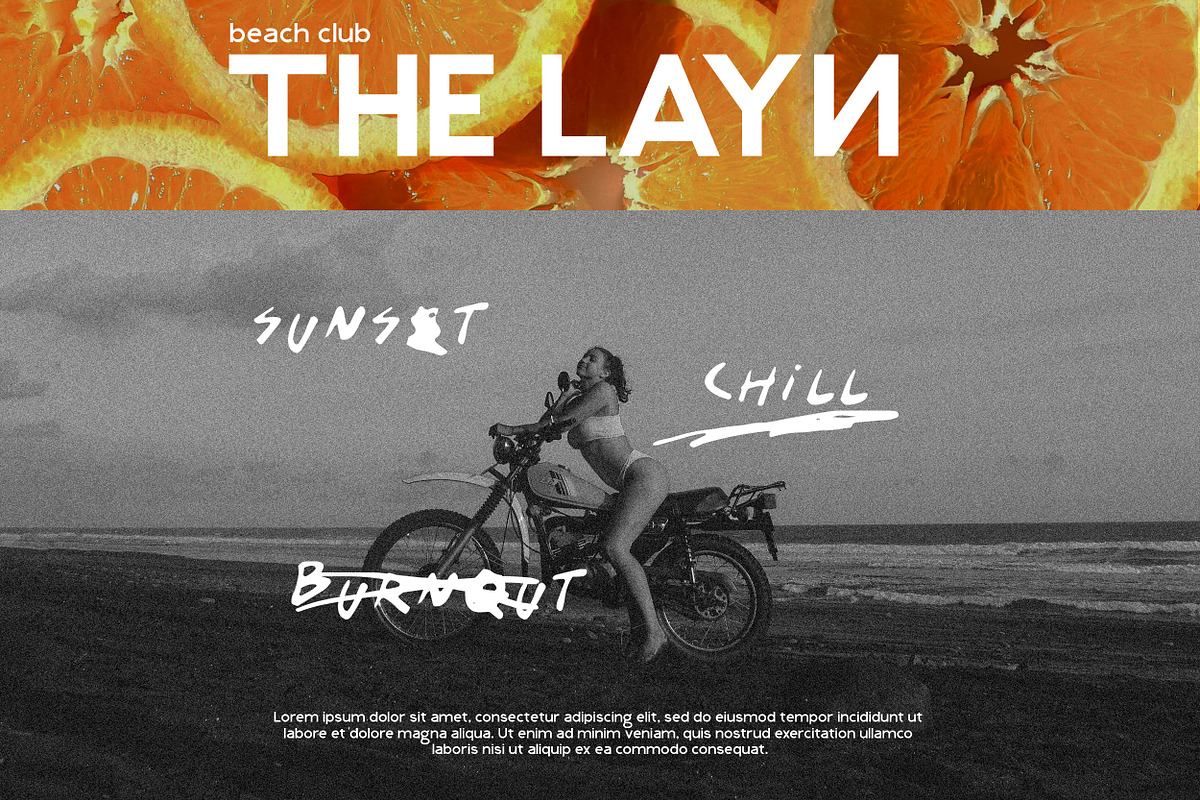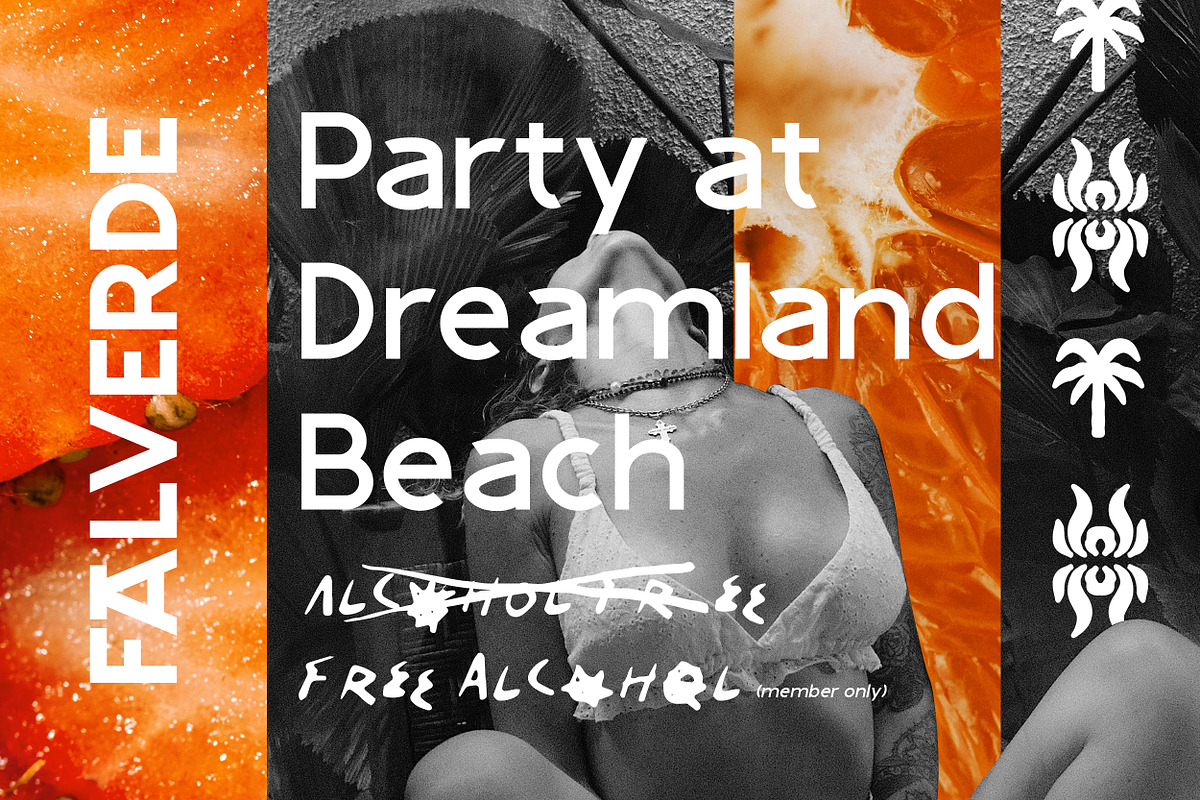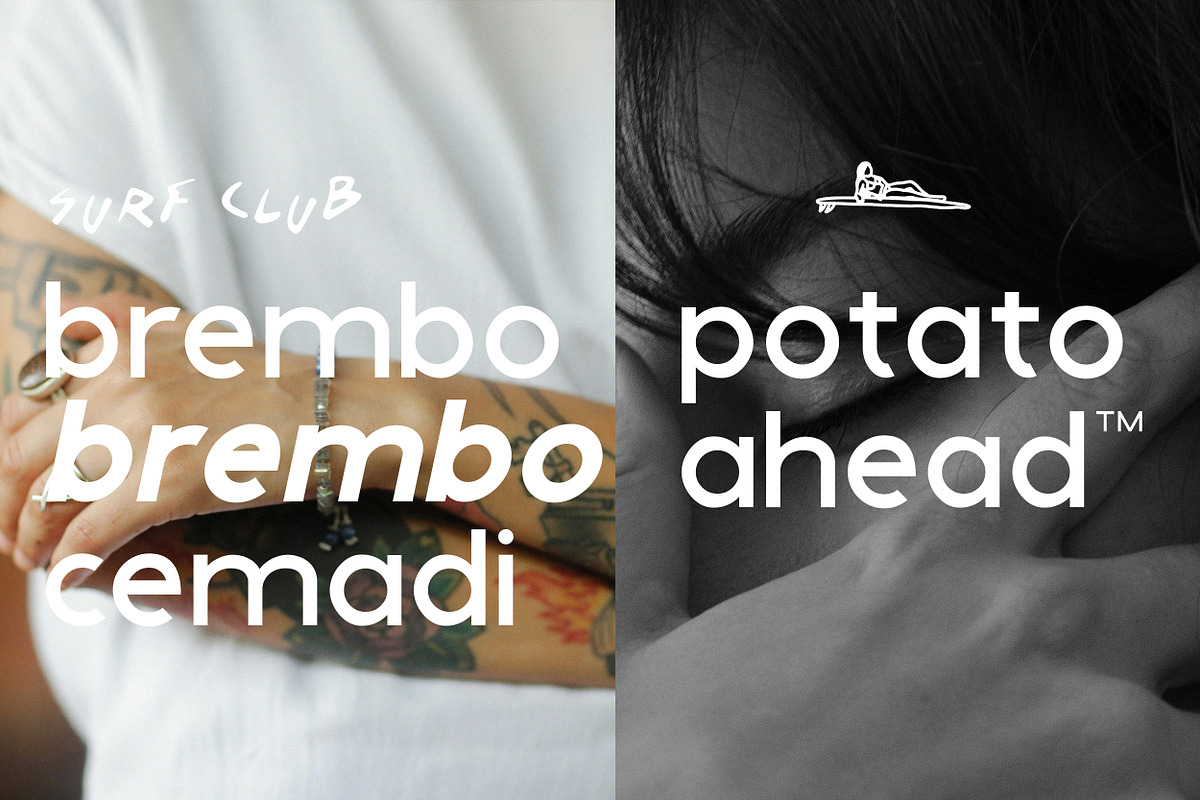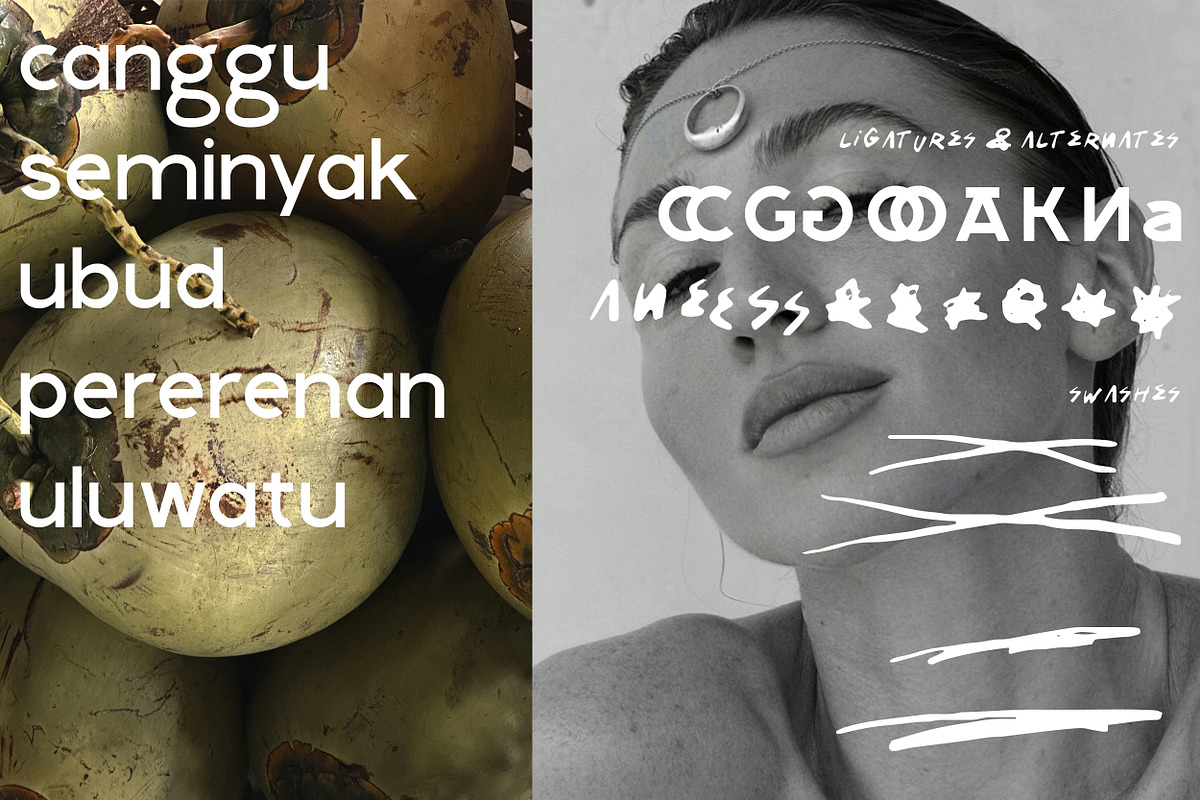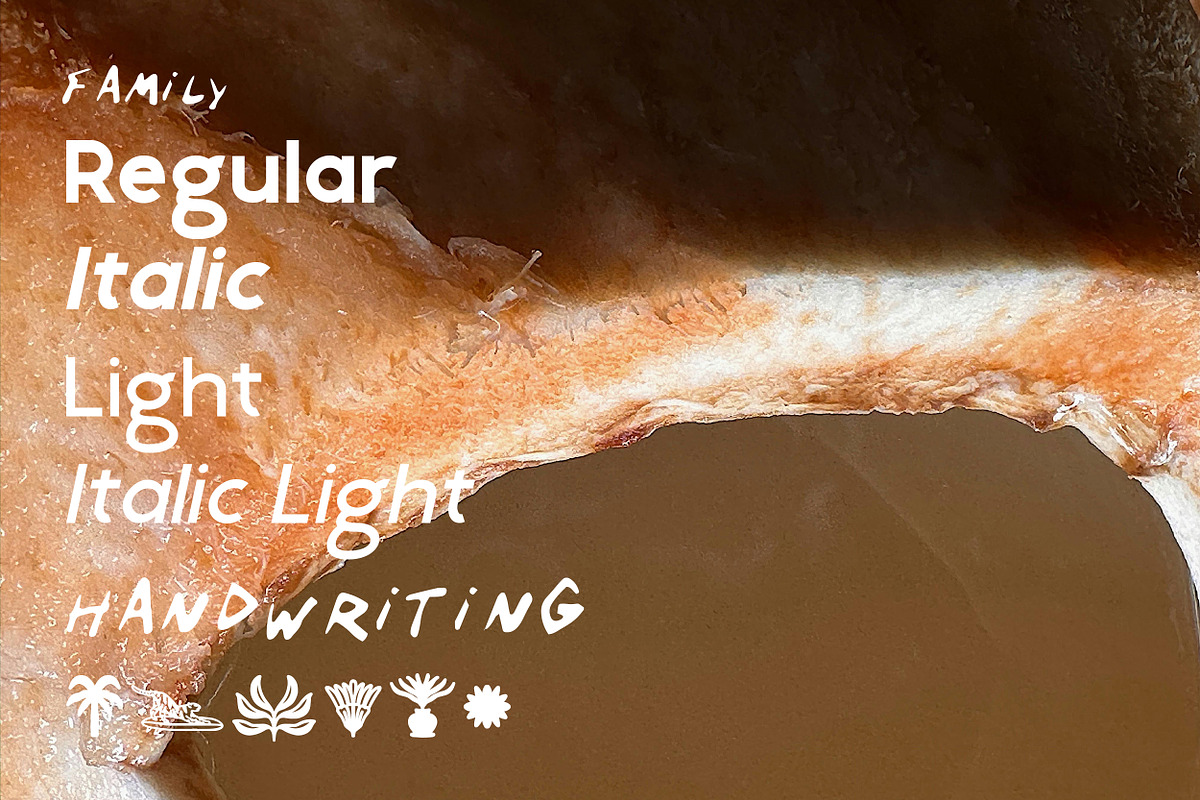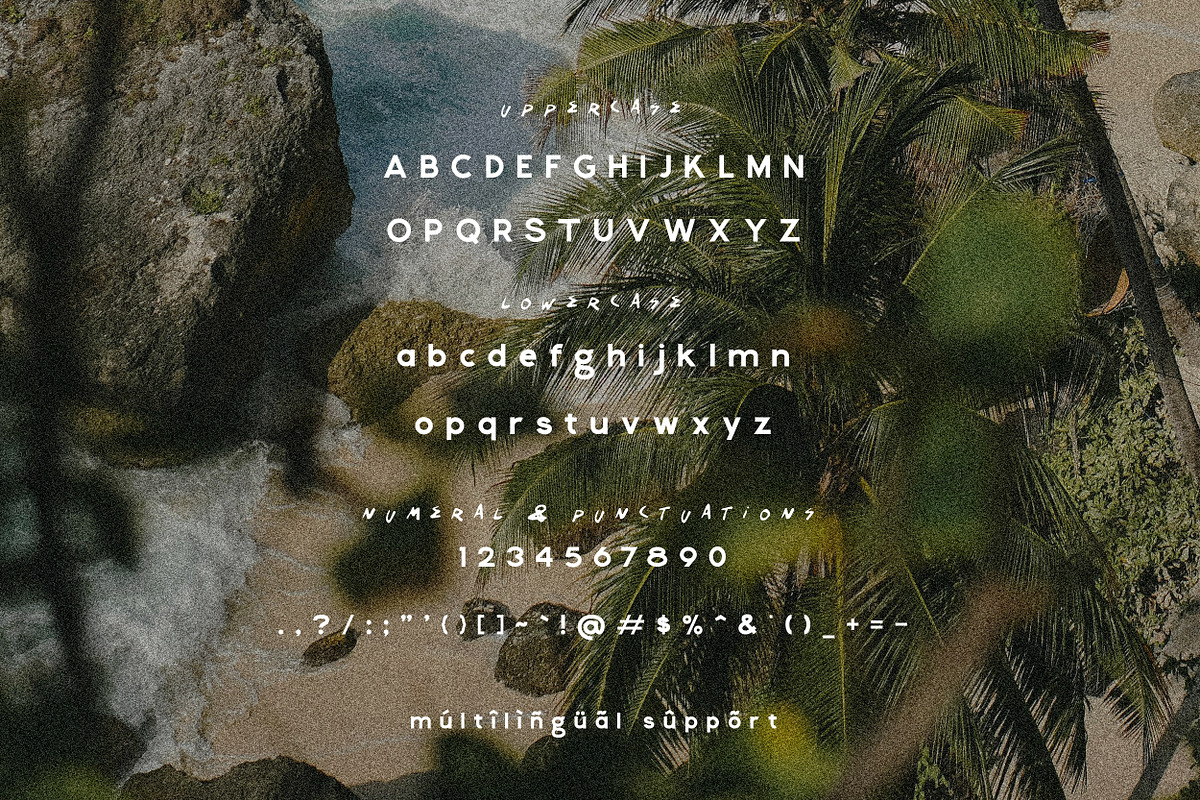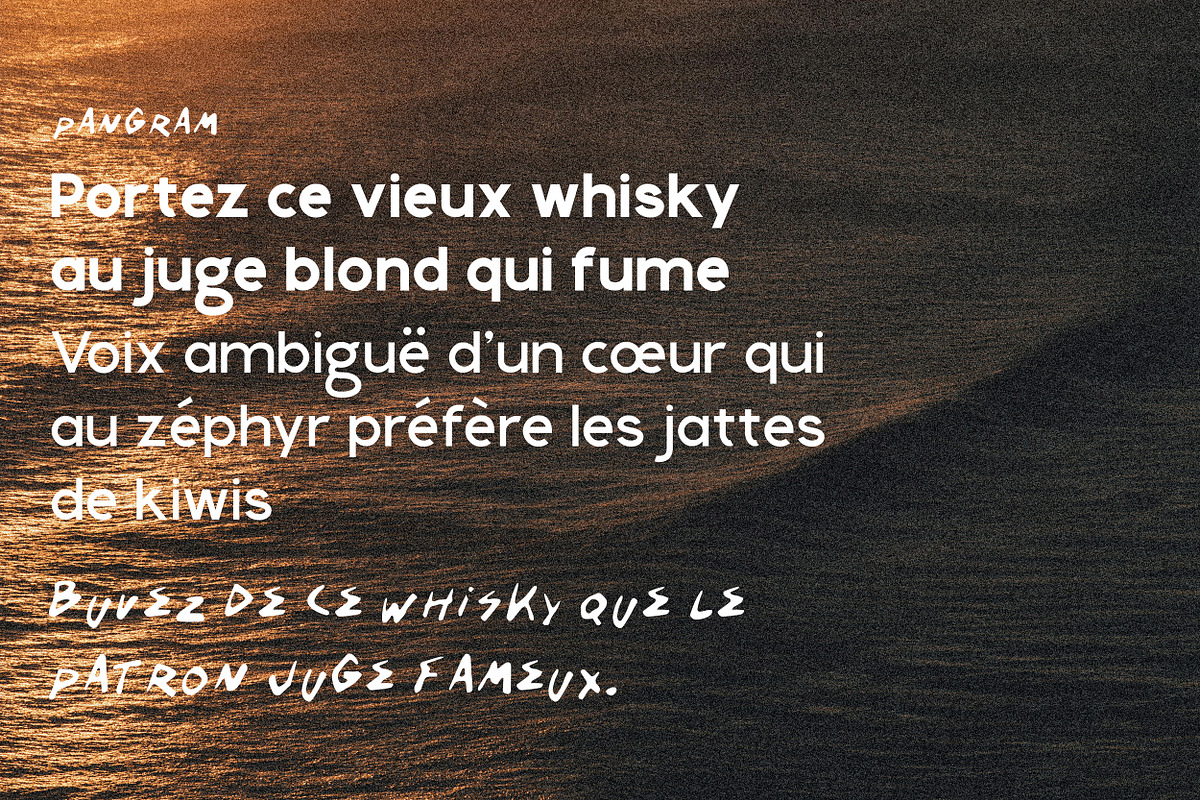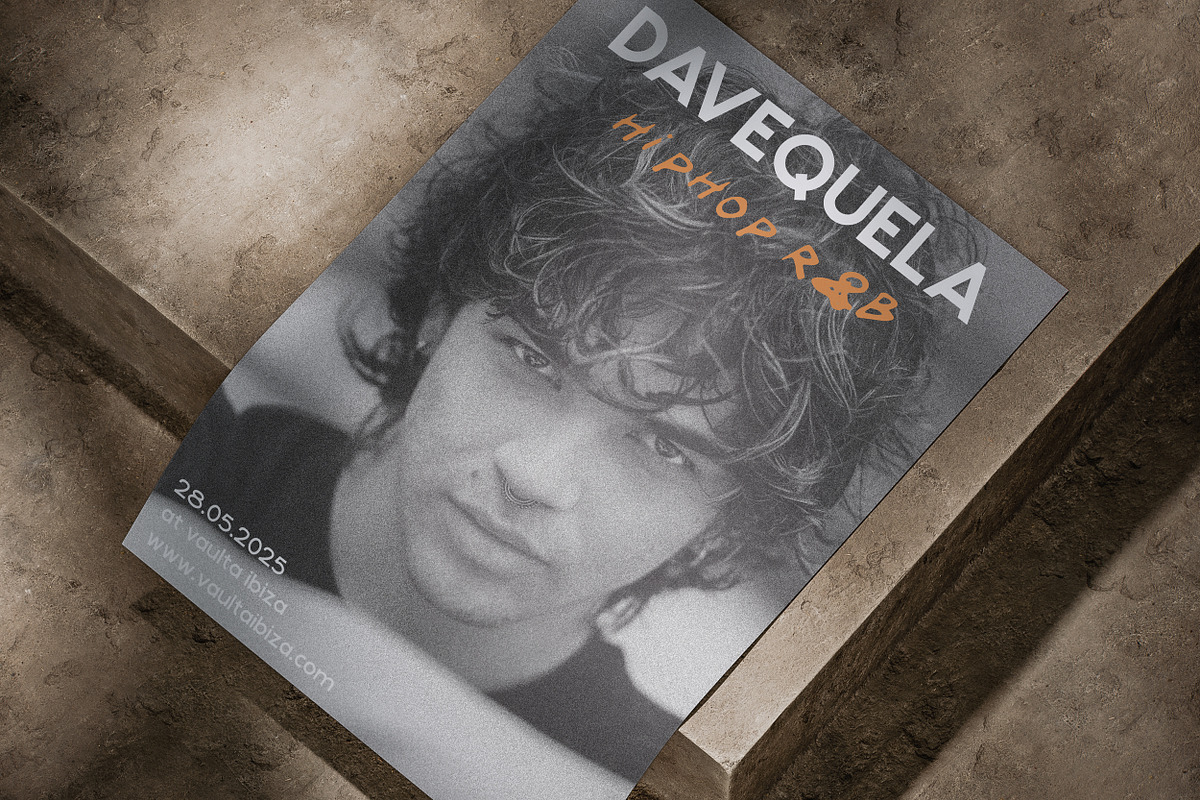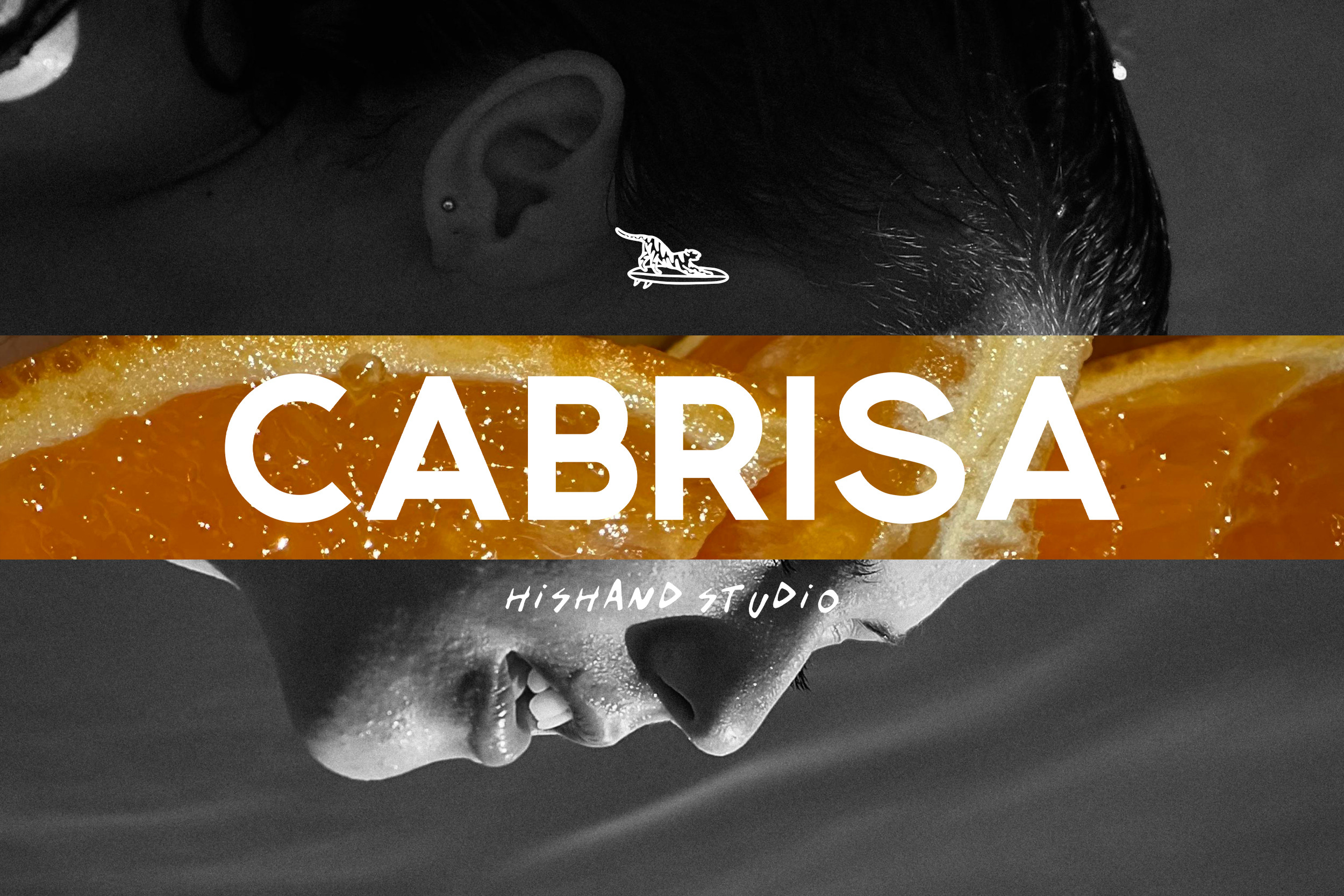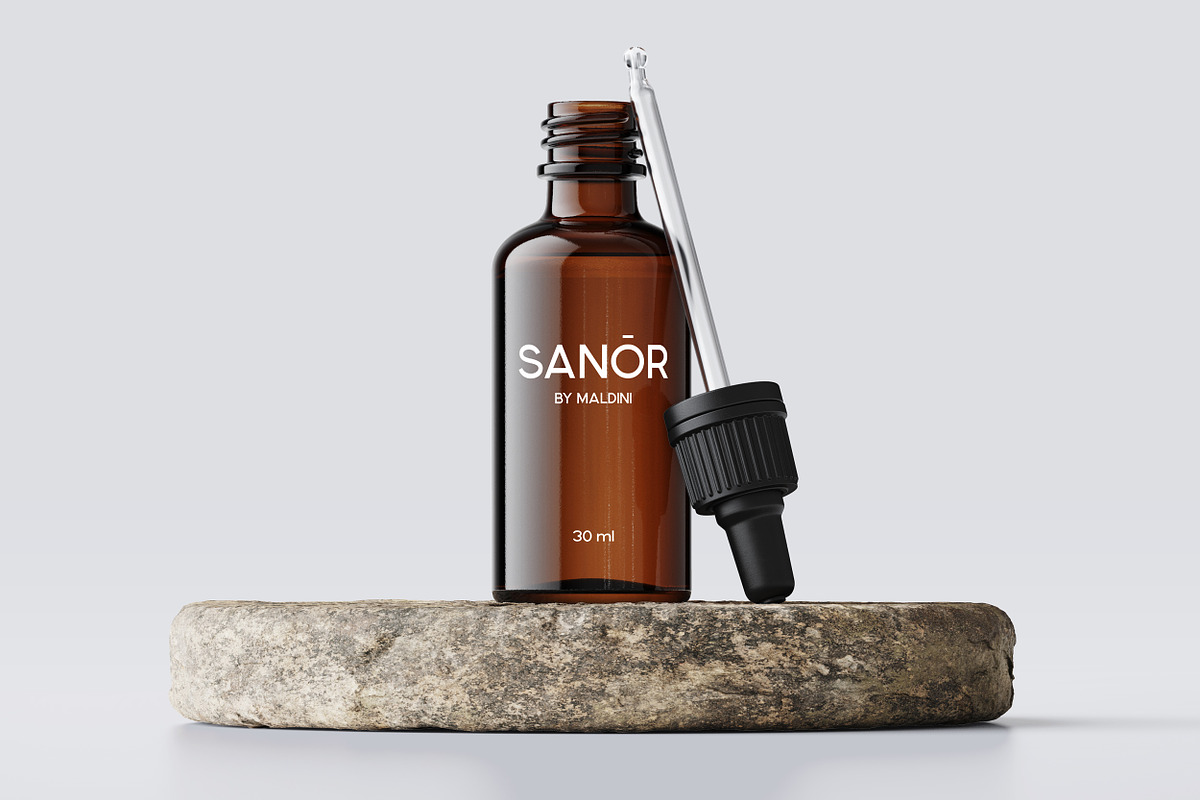
CABRISA Stylish Font Duo
Cabrisa Duo is a stylish font, featuring a clean sans serif and a natural handwritten script. Perfect for modern branding, social media, and editorial use. It includes 26 aesthetic icons to enhance creative projects with a minimal, elegant touch. Ideal for those seeking balance between structure and personality in design.
Complete with
- alternates
- regular
- italic
- light
- italic Light
- hand-writing
- icon
- kerning
- multilingual support